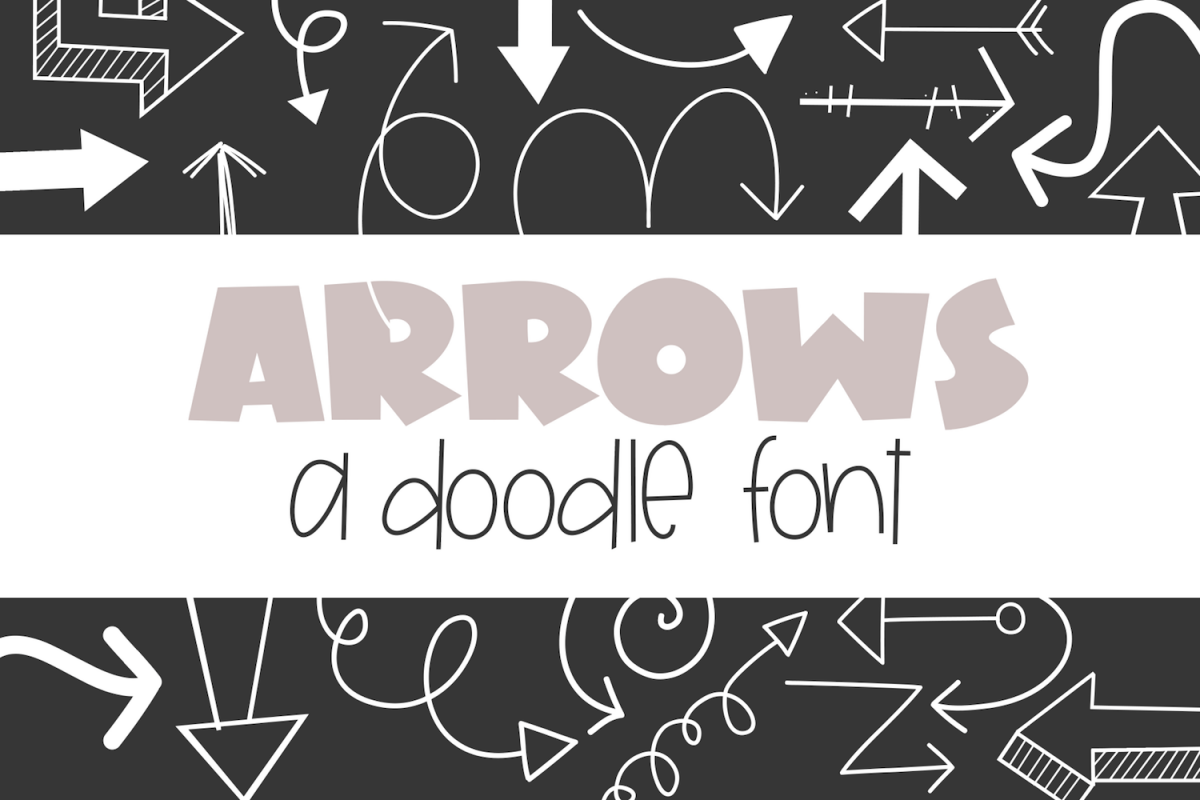
Arrows - A Doodle Font
Arrows is a doodle (dingbat) font.
It includes 52 hand-drawn arrows to use in your designs!
Instead of a letter showing up, a small doodle will!
You can resize the doodle, color the doodle and add text to the doodles!